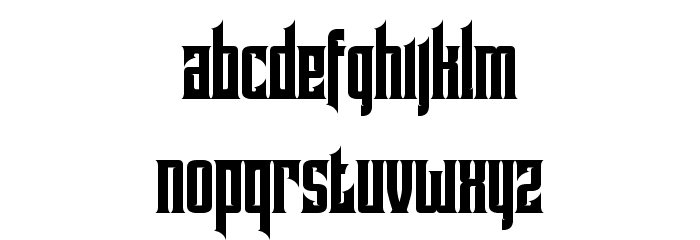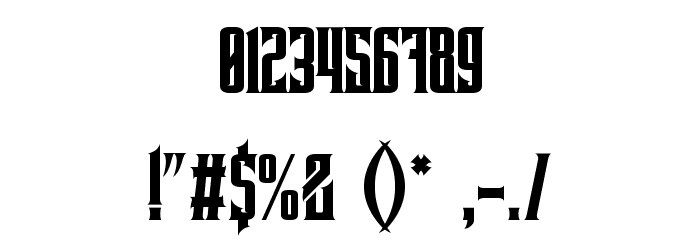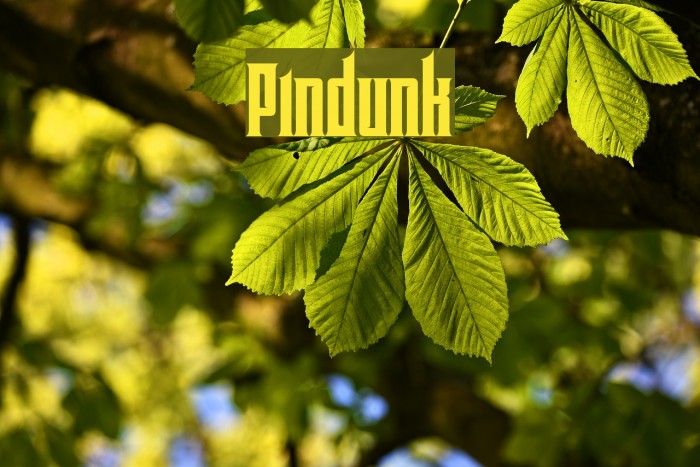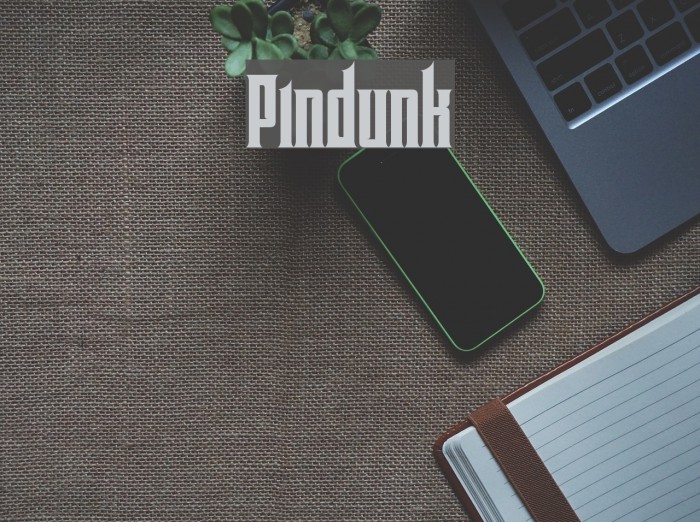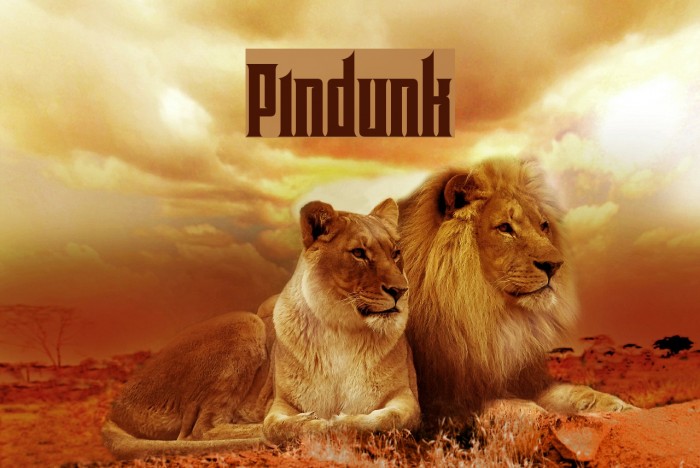
Pindunk Font
This font features a bold and striking design with a strong blackletter influence. The characters are sharply angular, with pointed serifs and a gothic aesthetic. The uppercase letters are tall and imposing, while the lowercase letters maintain a consistent style with slightly less height. Numbers and special characters follow the same bold and dramatic style, making them stand out. The overall appearance is reminiscent of medieval script, yet with a modern twist that enhances its visual impact.
A bold, gothic-inspired blackletter font with sharp angles and dramatic style.
- Proposed Projects: Ideal for projects requiring a medieval or gothic theme, such as event posters, book covers, or branding for music bands.
- Overall Style: Gothic, Modern